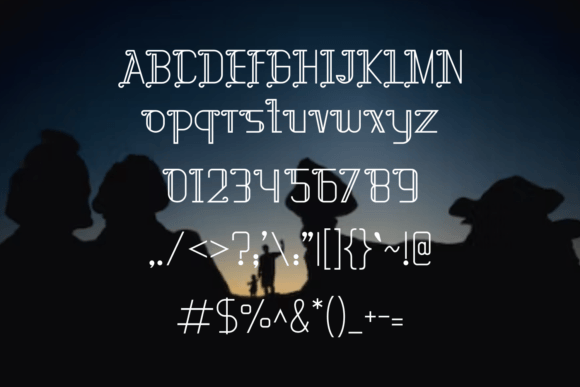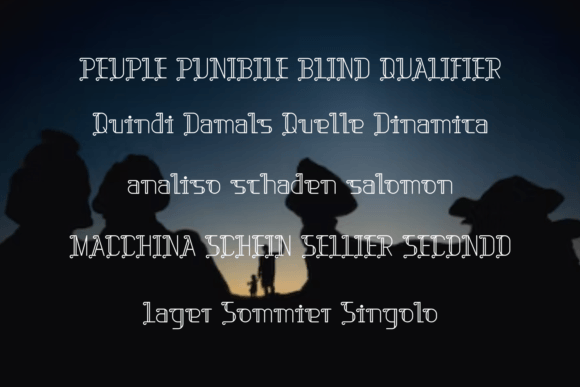
Introduction to Ranmarung Font
Have you ever been stuck on a creative project, struggling to find the perfect font to elevate your design? We’ve all been there – staring at a blank screen, wondering what’s missing that special something to make our work truly shine. For designers, finding the right font can be the difference between a mediocre creation and a masterpiece.
That’s where the Ranmarung Font comes in – a cool and modern display font that’s sure to take your designs to the next level. With its high quality and sleek aesthetic, this font is a valuable addition to any designer’s library. Whether you’re working on a branding project, creating a social media campaign, or designing a website, the Ranmarung Font is an essential design resource that’s sure to impress.
Key Features of Ranmarung Font
- High-quality design resource ideal for creative projects, offering a unique aesthetic for designers and artists.
- Features a clean and modern design, suitable for various applications, from digital displays to print materials.
Honest Review: Ranmarung Font
I recently had the opportunity to work with the Ranmarung Font in a creative project and I was quite impressed. This font is a fantastic design resource that offers high quality and versatility. One of the standout features is its ability to be used on a transparent background, which adds a touch of sophistication to any design.
Here are some things that work well with the Ranmarung Font:
- ✨ Clean and modern aesthetic: The font has a sleek and contemporary feel that makes it perfect for modern designs.
- ✨ High quality: The font is well-designed and rendered, making it suitable for both digital and print applications.
However, I did encounter a few limitations with the Ranmarung Font:
- ⚠️ Limited character set: The font only includes a limited set of characters, which may not be suitable for complex designs or languages that require a larger character set.
- ⚠️ Not suitable for bold text: The font can become distorted when used for bold text, which may not be ideal for headings or titles.
Overall, I was quite pleased with the Ranmarung Font and would recommend it as a design resource for simple, modern designs. However, designers working on more complex projects may want to consider other options.
The Ranmarung Font is a high-quality design resource that can elevate your creative projects. This free download offers a unique and stylish look with its transparent background, making it perfect for a variety of applications.
Experiment with different font sizes, colors, and combinations to achieve the desired effect. You can also use it in conjunction with other design elements to create a unique visual identity.
The Ranmarung Font is suitable for various design projects, such as logos, branding materials, social media graphics, and even wedding invitations. Its unique style and transparent background make it perfect for creating eye-catching designs.